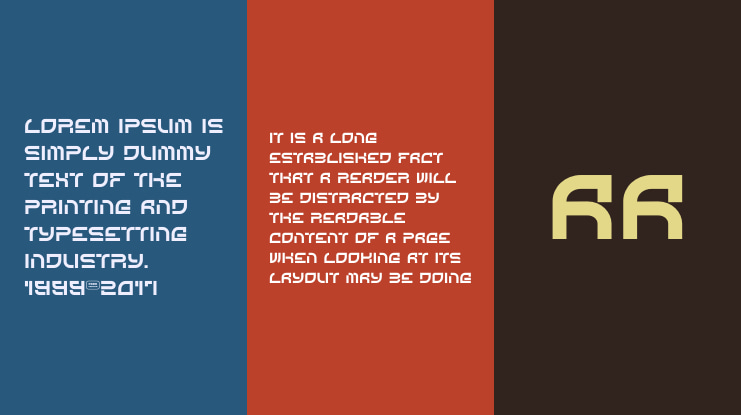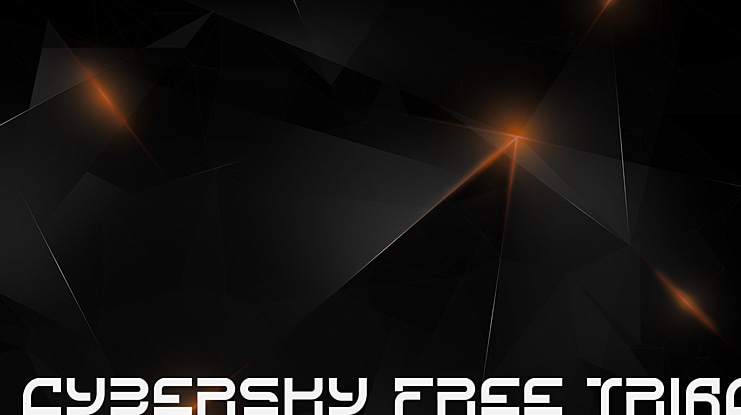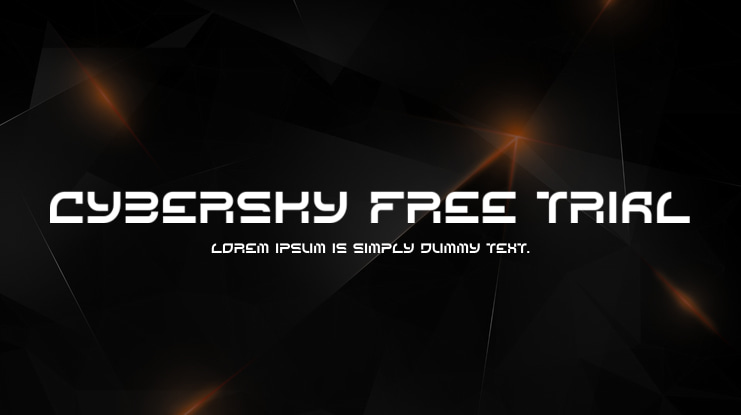
Cybersky Free Trial Font
Cybersky is a sharp, angular, futuristic font in a retro style.
Perfect for sci-fi themes, night street race and space adventures!